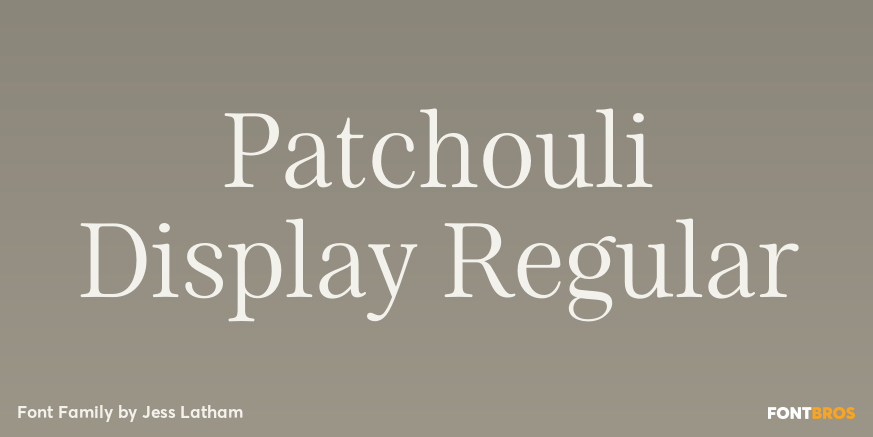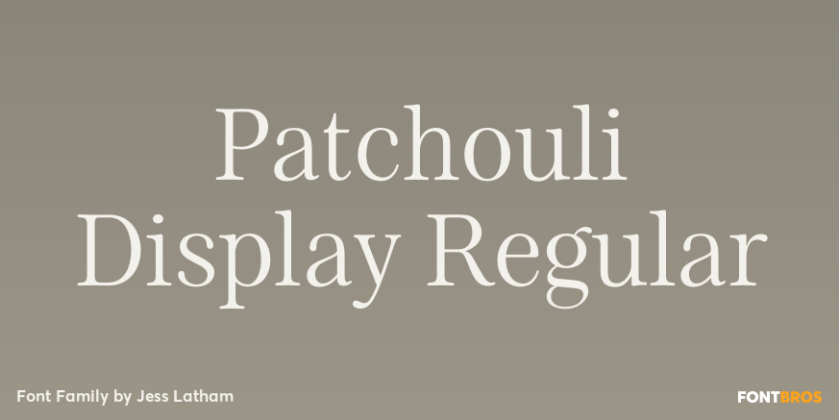
Patchouli Display Regular
About Patchouli Display Regular
The design of Patchouli Display began in 2009. My goal was to do design a display face that would be casual and soft. The family contains italics and bolds and each font is loaded with elegant swashes. The font also includes OpenType features such as:…